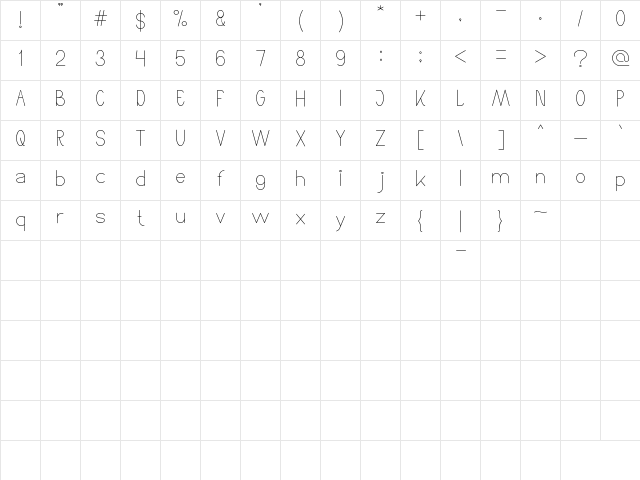
High Thin LIGHT Regular
Design Context for High Thin LIGHT Typeface
High Thin LIGHT takes a measured approach to typography — its balanced proportions and neutral character make it a reliable workhorse for both digital and print work. The delicate stroke weight brings airiness and refinement to layouts.